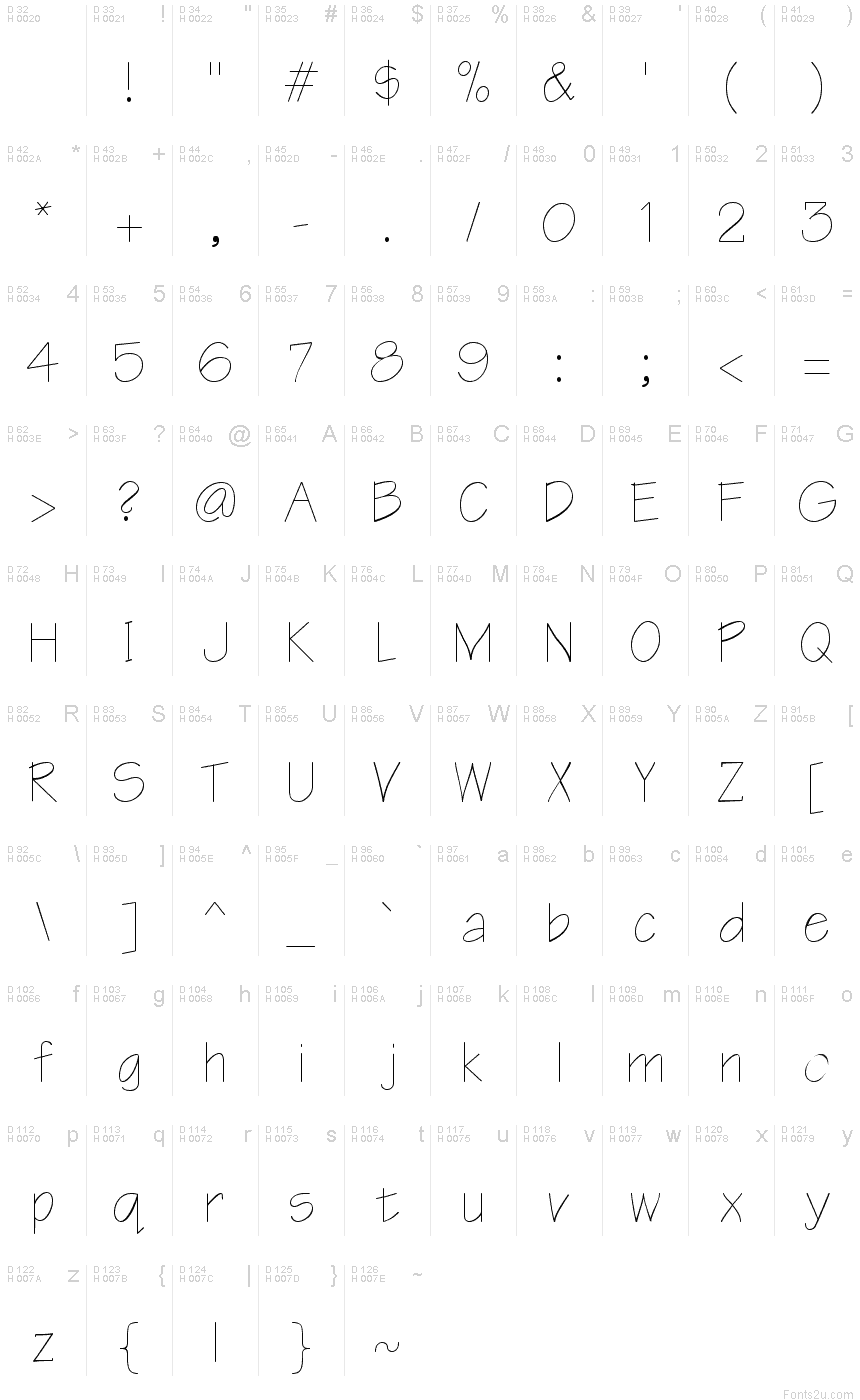
ER Architect Mac
ER Architect Mac font is a free handwritten sans typeface that captures the neat, measured feel of architectural lettering. Its thin, even strokes and upright, carefully spaced forms read like notes in the margin of a blueprint—informal but precise, human but disciplined. The result is handwriting that stays legible and consistent, even in dense captions or quick annotations.
Using ER Architect Mac in your layouts brings a sketched, studio-desk energy to diagrams, UI wireframes, instruction sheets, zines, and classroom materials. This free font works beautifully for labels on plans, callouts on infographics, and handwritten-style quotes that still need clarity. Pair it with a clean geometric sans for body text, and use ER Architect Mac slightly larger than normal to keep its fine lines crisp on screen and in print.